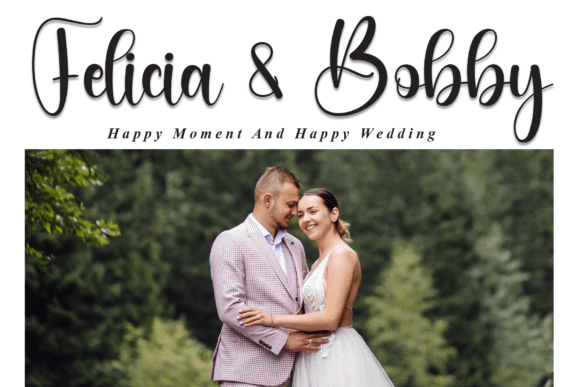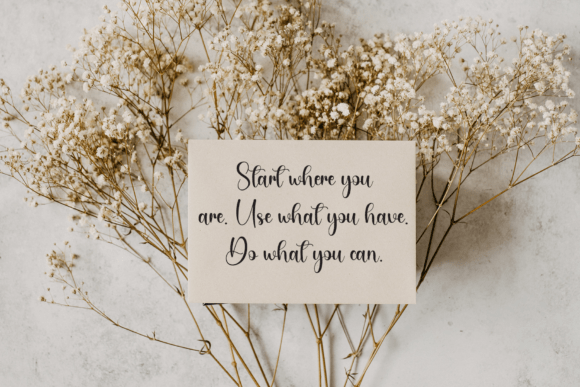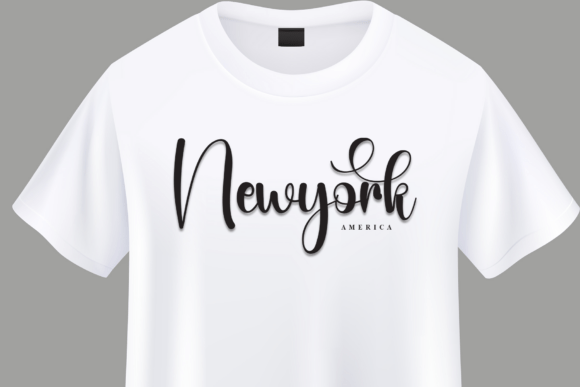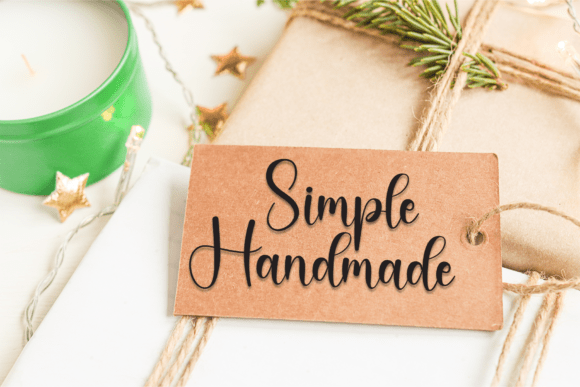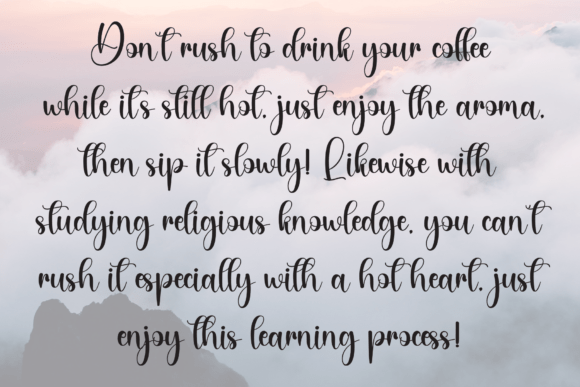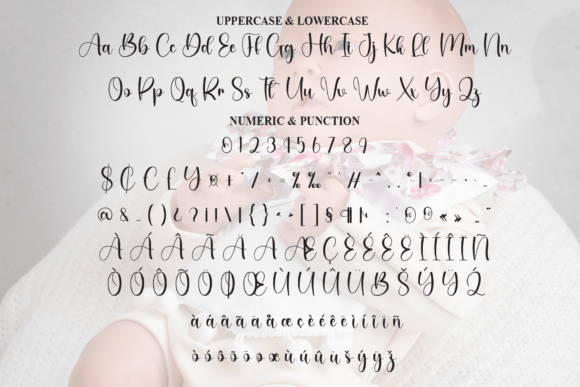
The Sweetest Script: Unwrapping the Magic of Baby Dool Font
As I sat at my desk, surrounded by scraps of paper and half-finished projects, I found myself staring at a blank page, searching for the perfect font to bring my design to life. And then, it hit me – the soft, whimsical touch that would transform my design into a work of art. That’s when I discovered the Baby Dool Font, a charming handwritten script font that exudes elegance and warmth.
This delightful font is specifically designed for baby-themed projects, nursery prints, branding, invitations, and anything that needs a gentle, loving feel. With its beautiful swashes and flowing letterforms, Baby Dool Font adds a touch of sophistication to any design. For designers, it’s a valuable asset that can elevate their work and make it truly special.
Baby Dool Font Key Features
• Font Family: Baby Dool is a unique, handwritten font designed for various creative applications.
• Unique Characteristics: Baby Dool features a playful, cursive style with distinctive flourishes and irregularities, making it perfect for adding a touch of whimsy to designs.
Baby Dool Font Review
Overall, the Baby Dool Font is a cute and playful typeface that can be suitable for various design projects. Here are some of its strengths: ✨
• Cuteness factor:** The font is undeniably adorable, making it perfect for designs targeting young audiences.
• Legibility:** At larger font sizes, Baby Dool is easy to read and understand.
• Color versatility:** The font looks great with a wide range of colors, from pastel hues to bold brights.
• At small sizes:** Baby Dool becomes difficult to read due to its irregular shape and uneven letter spacing.
• Lack of sophistication:** The font’s cutesy design might not be suitable for more professional or formal projects.
• Limited language support:** The font may not be optimized for languages with non-Latin scripts.
Overall, I think the Baby Dool Font is a great choice for designs aimed at a younger audience or those requiring a playful, whimsical touch. However, it may not be the best fit for more serious or complex projects.
Tips for Getting the Most Out of Baby Dool Font
For the best results, use Baby Dool Font on text with a clear, simple background and minimal visual clutter. Experiment with different font sizes, colors, and styles to find the perfect look for your design. Consider combining Baby Dool Font with other fonts or graphics to add visual interest and depth.
Baby Dool Font is perfect for creating playful, whimsical designs, such as:
– Children’s books and educational materials
Alternatives to Baby Dool Font
The Baby Dool Font is a unique, hand-drawn font known for its whimsical and playful feel. However, it may not be suitable for every design project. Here are a few alternatives that designers can consider:
Great Vibes is a beautiful, hand-drawn script font that is perfect for creating a sense of elegance and sophistication. It is ideal for wedding invitations, baby shower invitations, and other special occasion designs. Compared to Baby Dool Font, Great Vibes has a more refined and polished look, making it a great choice for formal designs.
Lobster is a popular, handwritten font that is great for creating a casual and friendly vibe. It is perfect for social media graphics, blog posts, and other informal designs. Compared to Baby Dool Font, Lobster has a more rugged and playful feel, making it a great choice for designs that require a bit of edge.